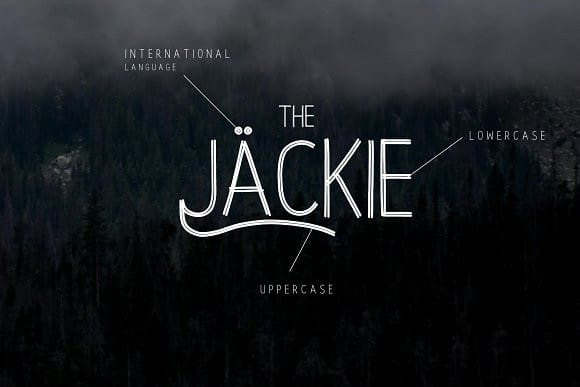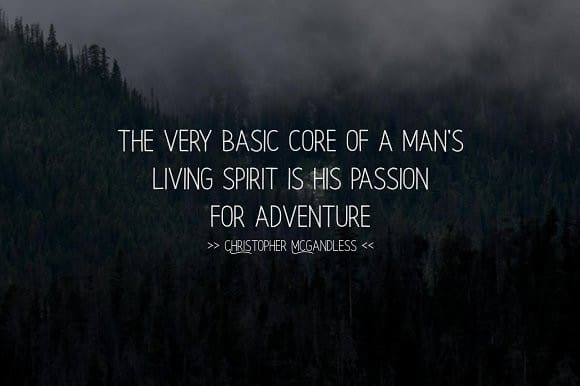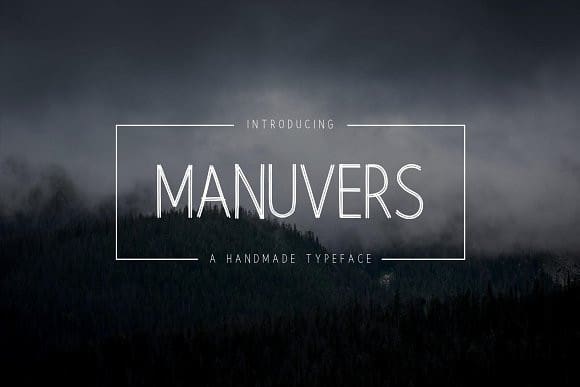
Manuvers Handmade Font
Manuvers Handmade Font is a sweet hand made sans serif font. It would be a perfect choice to design posters, affiches, logos, t-shirt and magazine prints, eye-pleasing typographic designs and more.